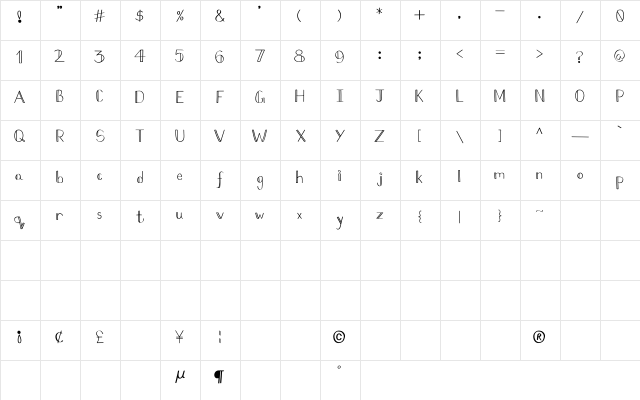
Mbb_Doubleline Regular Font Preview
Mbb_Doubleline Regular
Design Context for Mbb_Doubleline Typeface
Mbb_Doubleline is a composed and adaptable typeface that performs quietly and consistently across a wide range of design contexts.